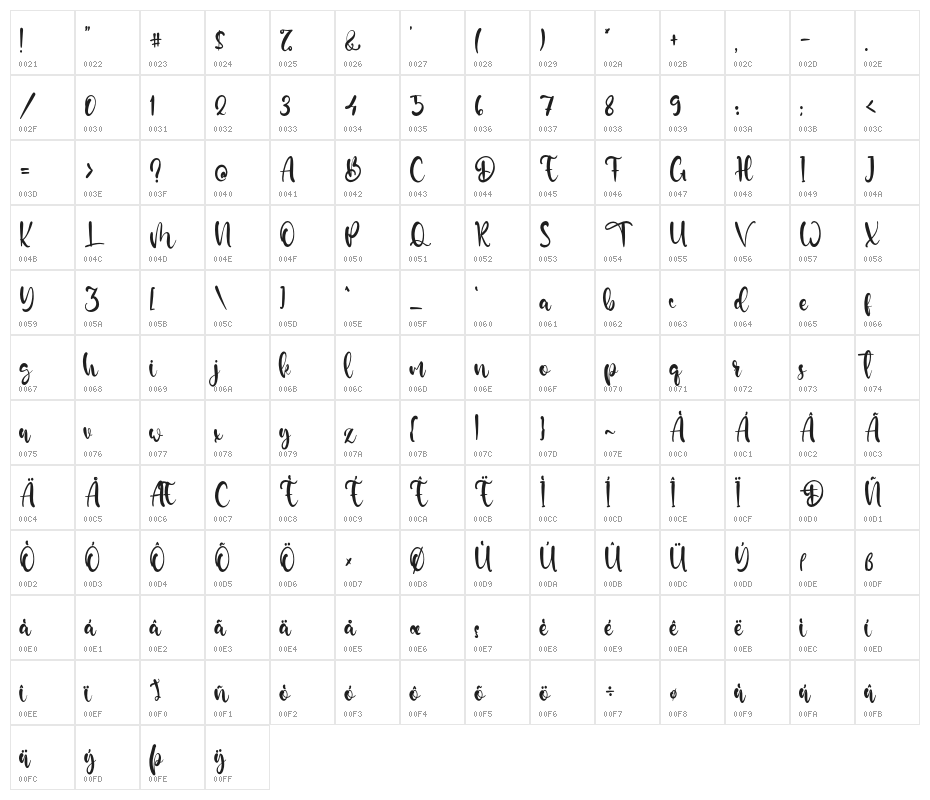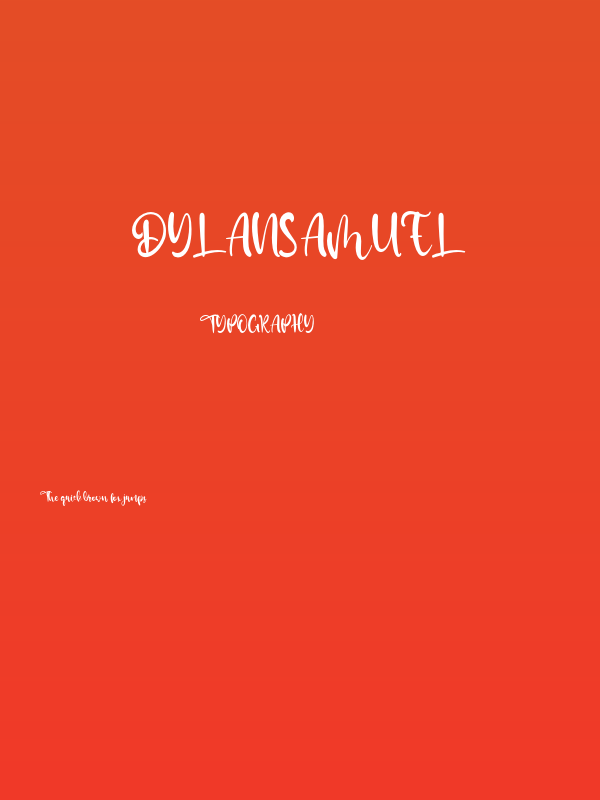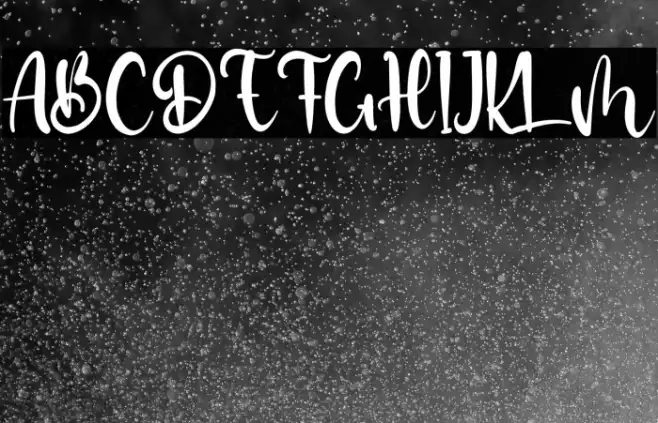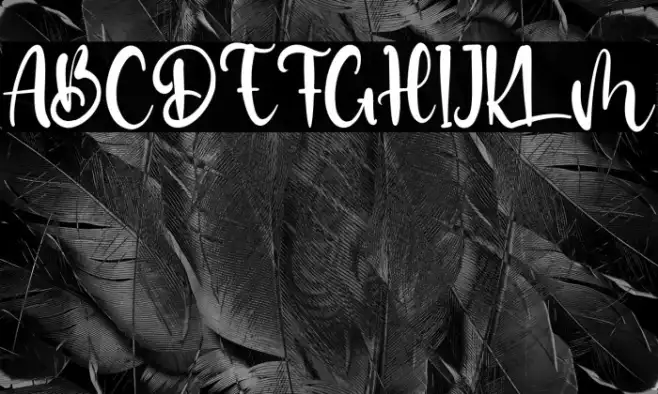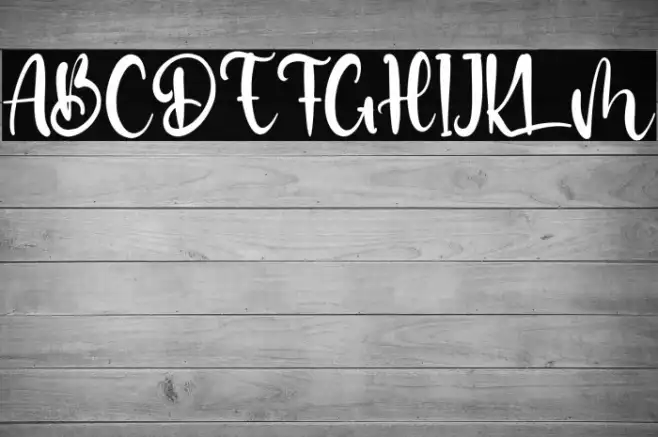
DylanSamuel Font
DylanSamuel Description
This font features a lively and expressive script style, characterized by its fluid, cursive strokes and playful loops. The letters are interconnected, creating a sense of continuity and flow, while maintaining legibility. The uppercase letters are bold and prominent, with a slight slant that adds a dynamic feel. The lowercase letters are more compact, with varying heights and distinctive flourishes that enhance the font's whimsical nature. The numerals are consistent with the overall style, featuring rounded edges and a balanced weight. Special characters are creatively integrated, maintaining the font's cohesive look.
| Proposed Projects | Ideal for wedding invitations, greeting cards, branding projects, and social media graphics. |